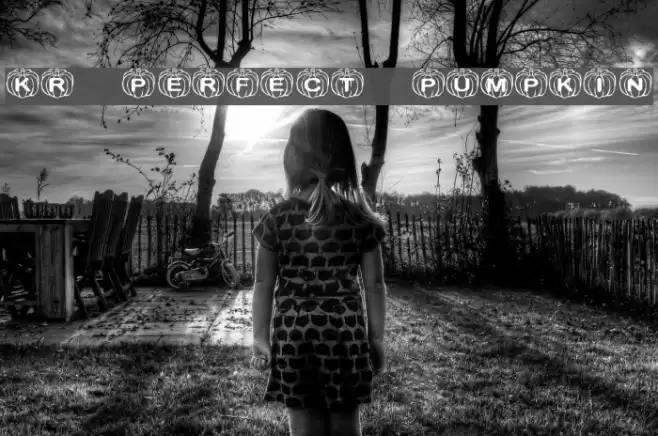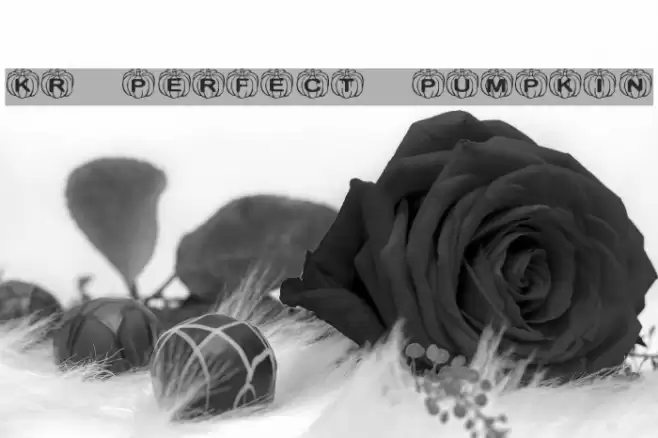
KR Perfect Pumpkin Font
KR Perfect Pumpkin Description
This playful and thematic font features each character encased within a stylized pumpkin shape, creating a festive and whimsical appearance. The letters are bold and clear, making them easily readable despite the decorative pumpkin outline. This font is perfect for seasonal projects, particularly those related to autumn or Halloween, as it captures the essence of the season with its unique design. The characters are evenly spaced within the pumpkins, maintaining a consistent and balanced look throughout the alphabet. The font's distinct style makes it ideal for creative and eye-catching designs.
A playful font with letters encased in pumpkin shapes, perfect for autumn themes from Uncategorized fonts.
- Proposed Projects: Ideal for Halloween invitations, seasonal greeting cards, festive banners, and themed party decorations.
- Use Case: Headlines, Logos, Seasonal Designs